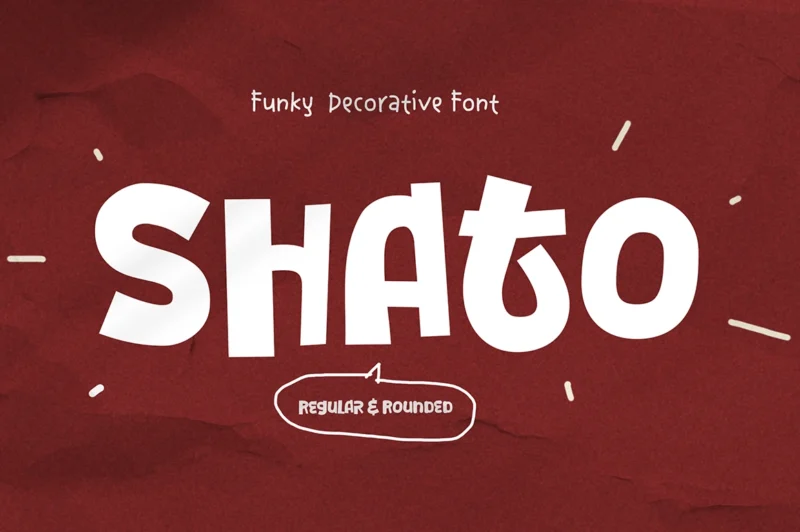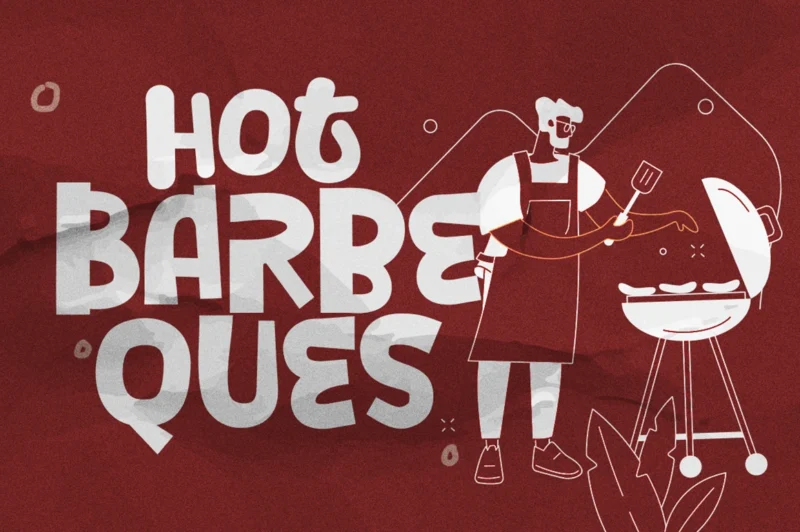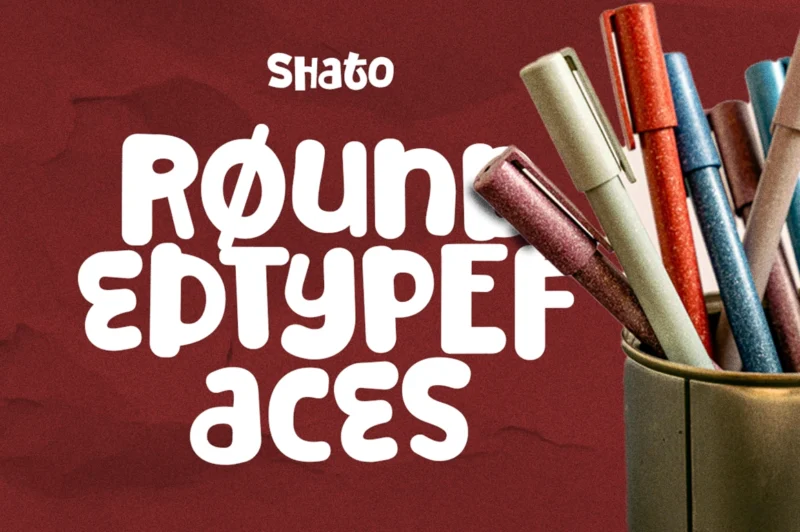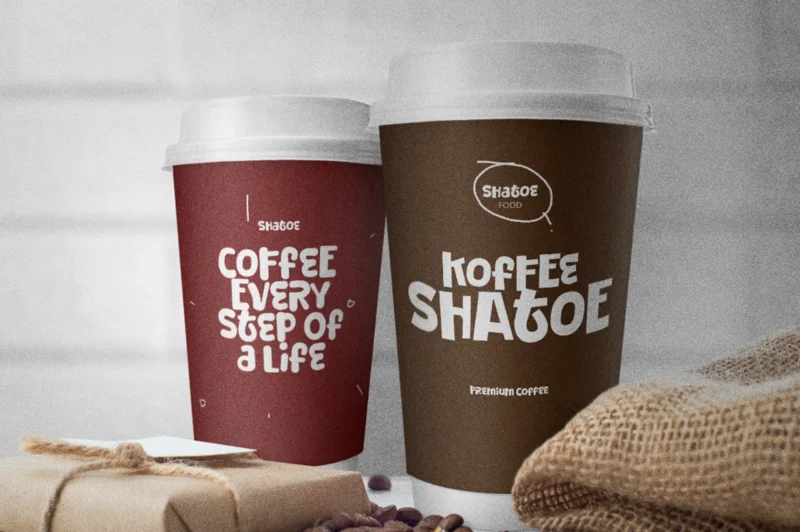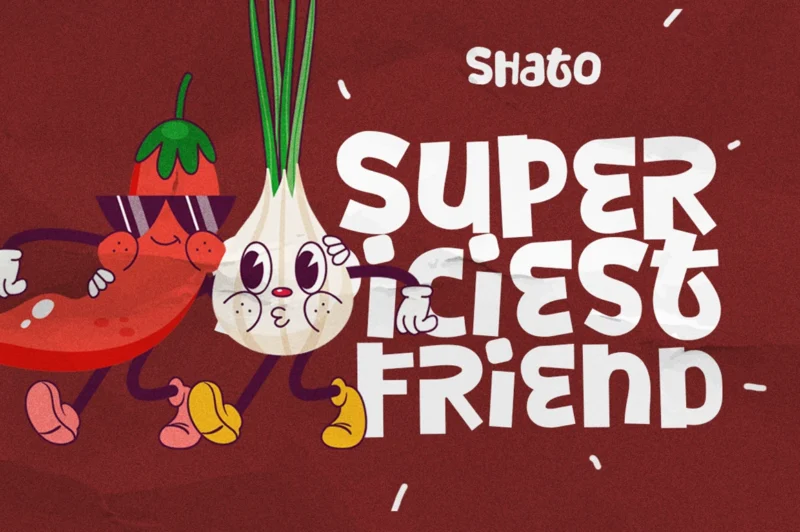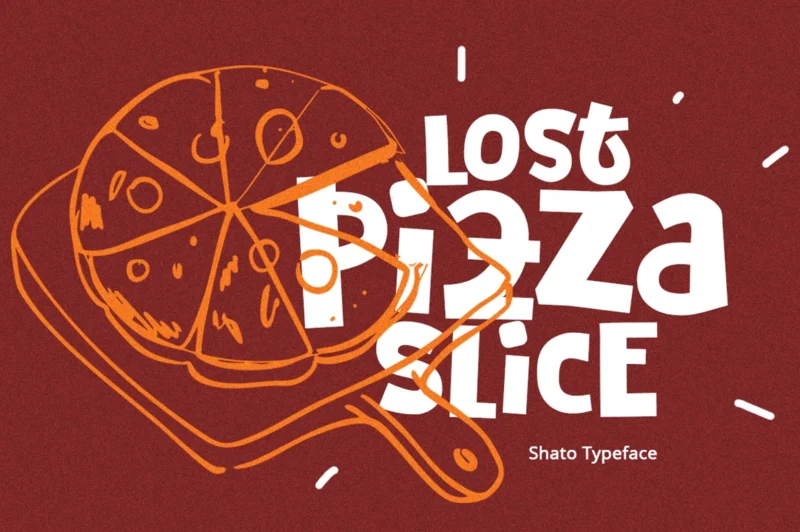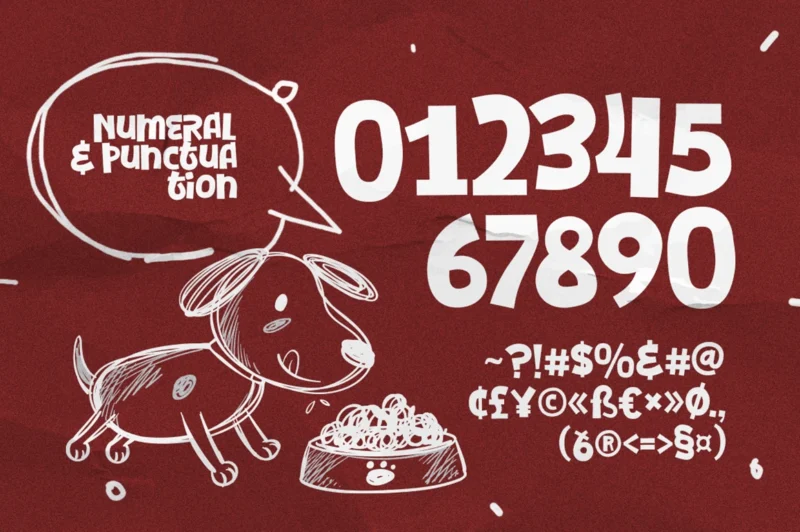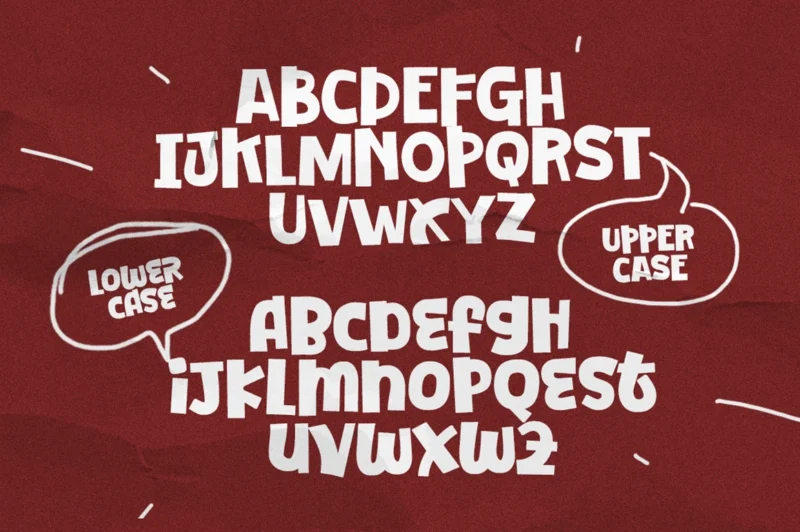
Shato Regular
Shato Rounded
Shato isn’t here to whisper—it’s here to shout in style. A bold, funky decorative font with a playful soul, Shato turns ordinary words into expressive visuals. Its modern, offbeat character brings a sense of movement and attitude, making every letter feel alive and full of energy. Crafted in two distinct styles—**Regular and Rounded**— Shato lets you shape the mood your way. Go sharp and confident, or smooth and friendly, all while keeping that unmistakable playful edge. Perfect for headers, banners, branding, and logos, Shato thrives in designs that dare to be different. It’s not just about being seen—it’s about being remembered. Let Shato speak loud, have fun, and steal the spotlight.
• Unique Decorative Font
• All Caps Font
• Basic Latin Glyphs
• Modern and Funky
• Numeral and Punctuation
• Currencies
Multilingual Support
Shato – Funky Decorative Font